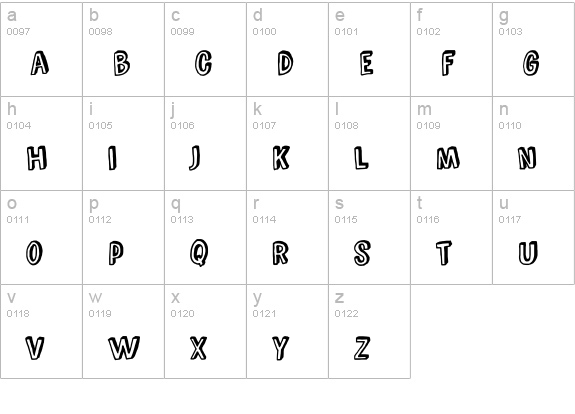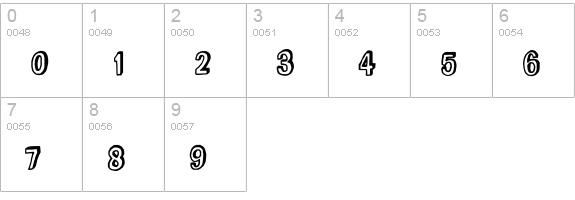
Comic Zine OT Font Details
Comic Zine OT is a fun and lively font that is perfect for adding a touch of whimsy and playfulness to any design project. With its bold and exaggerated letterforms, this font is reminiscent of classic comic book typography, making it a great choice for comic book titles, children's book covers, and even posters or flyers for events that are meant to be light-hearted and entertaining. The uniqueness of Comic Zine OT lies in its free-spirited and hand-drawn appearance. Its irregular strokes and slightly uneven letter spacing give it an organic and artistic feel, making it stand out from other more structured fonts. This font exudes a sense of joy and creativity, capturing the essence of the comic book world and bringing it to life in your designs. Whether you're a professional designer or a hobbyist, Comic Zine OT is a versatile font that can be used in a variety of design projects. Its bold and playful nature makes it ideal for creating eye-catching headlines, while its legibility ensures that your message will be conveyed clearly. Additionally, this font is available in a wide range of weights, allowing you to experiment and find the perfect variation for your specific needs. One of the best things about Comic Zine OT is that it is freely available to download at FontsMarket.com. This means that you can easily access and use this font without any hassle or cost. Whether you're working on a personal project or a commercial endeavor, the freedom to use this font without restrictions is a definite advantage. So, if you're looking to inject some fun and personality into your design work, Comic Zine OT is the perfect choice. Download it for free from FontsMarket.com and let your creativity soar.